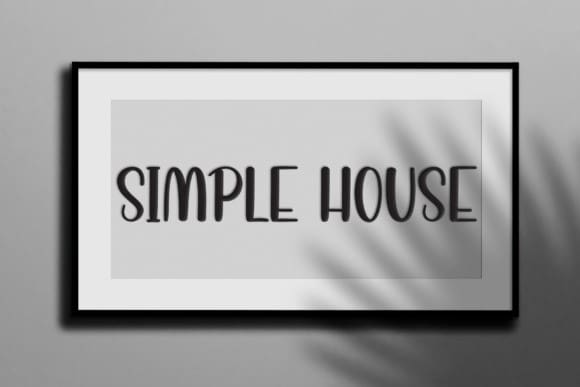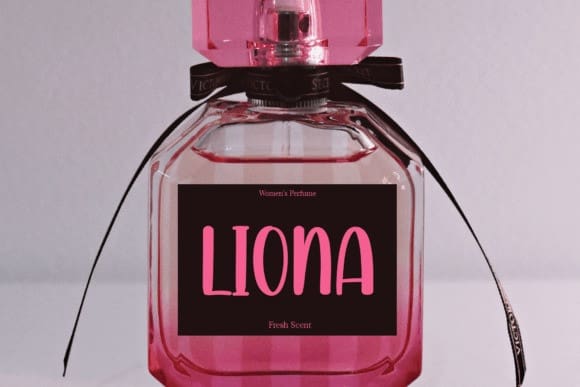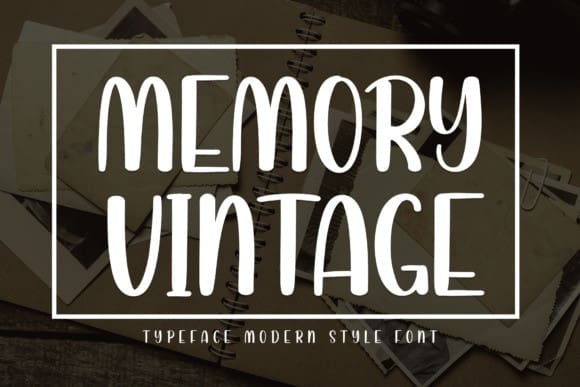
Memory Vintage Font
Memory Vintage Font is a sweet and friendly display font. Cute and fun, this font is ideal for writing wedding invitations, cards, or any other design that might need a fun touch!